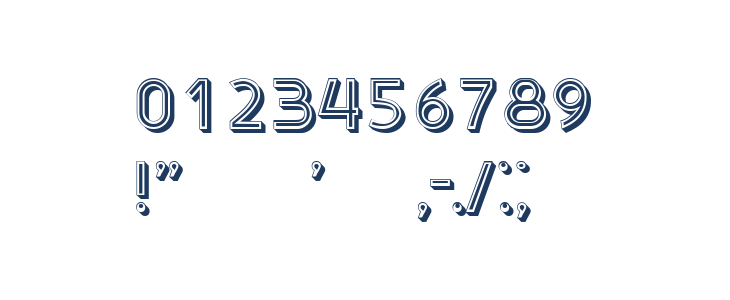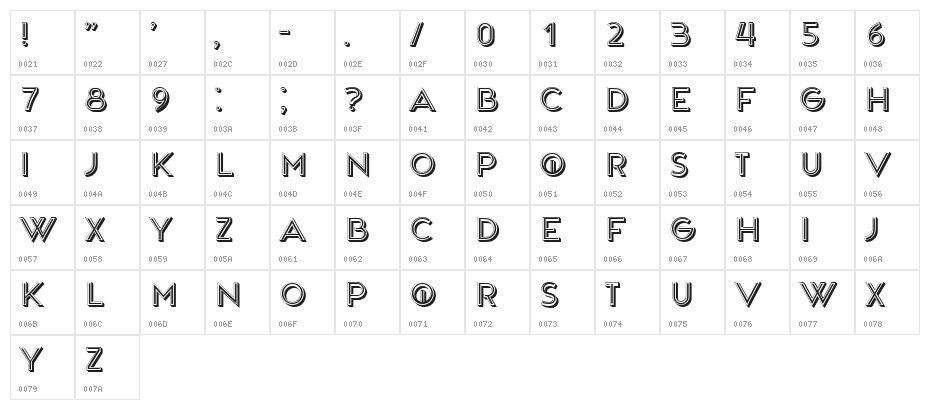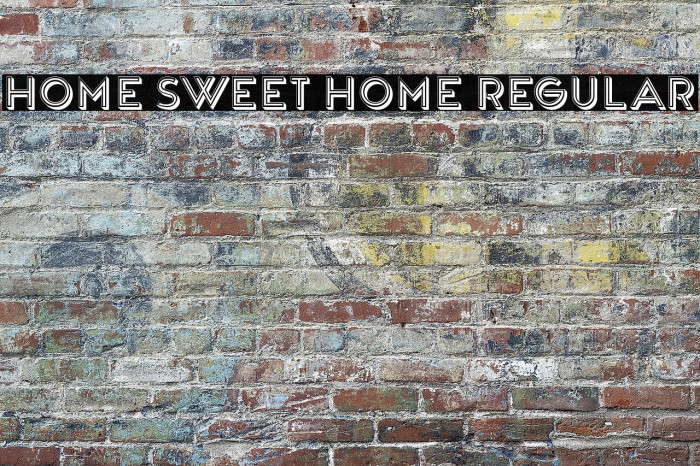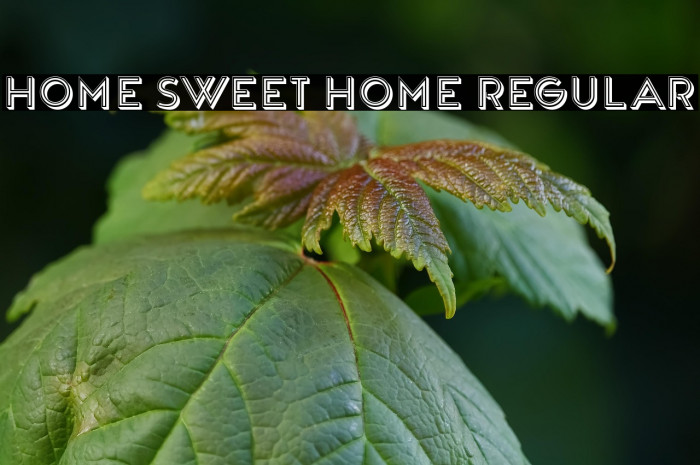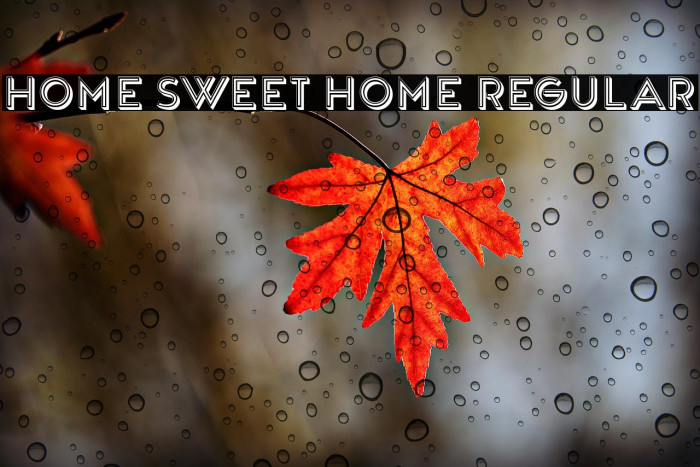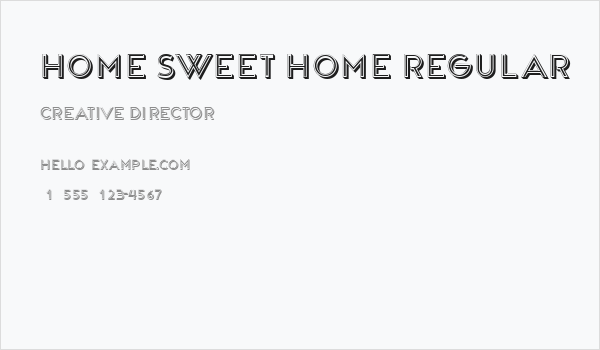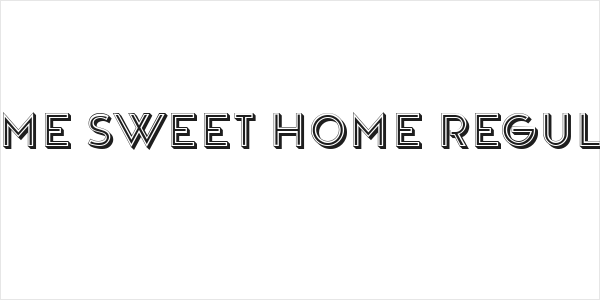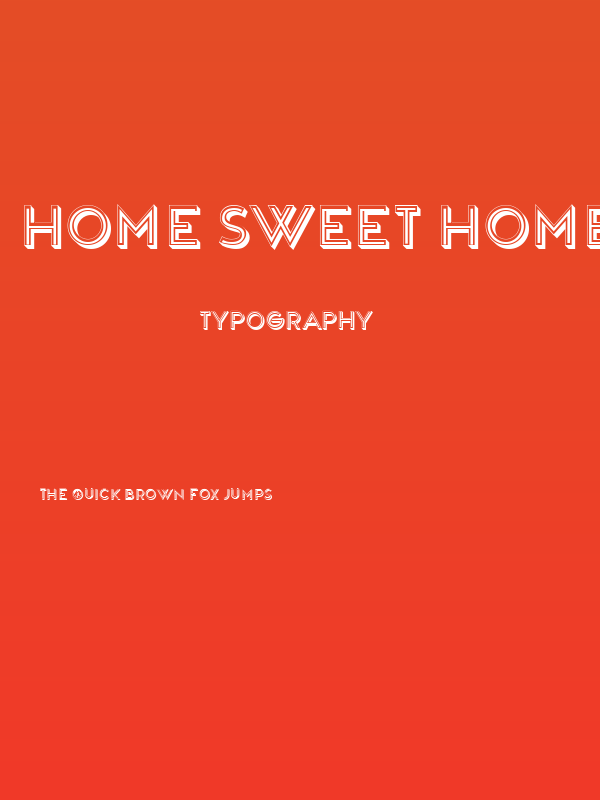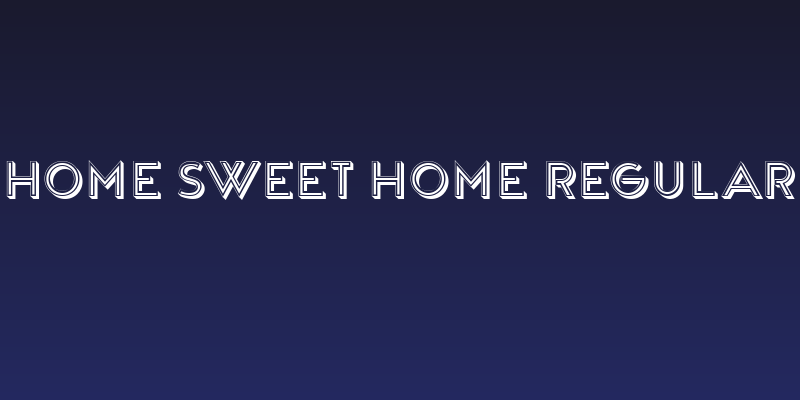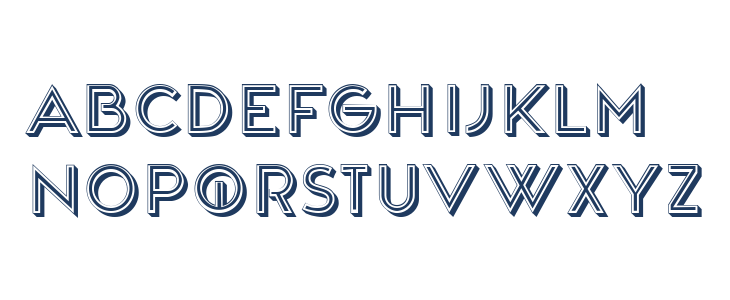
Home Sweet Home Regular Font
Home Sweet Home Regular Description
This font features a bold, decorative style with a three-dimensional effect, achieved through the use of shadowing and outlines. The characters are uppercase and have a geometric, block-like structure, giving them a modern and dynamic appearance. The font includes a full set of uppercase letters, numbers, and a selection of punctuation marks and special characters. The design is eye-catching and suitable for creating impactful headlines or logos. Its unique style makes it stand out, while maintaining readability.
| Proposed Projects | Ideal for branding, poster design, headlines, and any project requiring a bold, attention-grabbing typeface. |